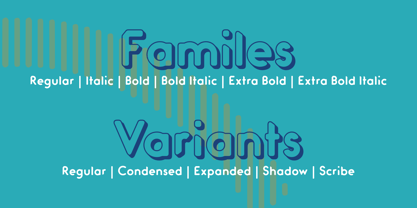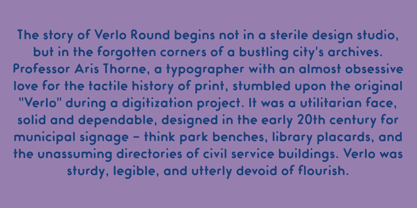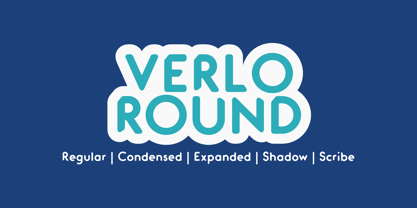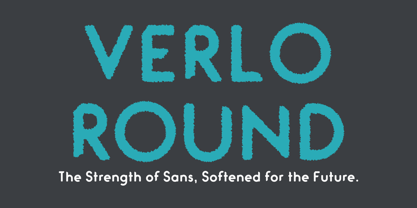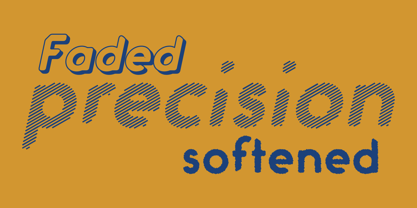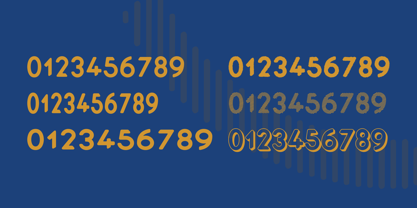
Verlo Round
by Kufic Studio
The Verlo Round Font Family was designed by Ahsan Ahmedzai and published by Kufic Studio. Verlo Round contains 36 styles and family package options. More about this family
Verlo Round, the definitive modern sans-serif typeface, is engineered for superior readability and maximum impact by refining a classic form with soft, inviting curves for an approachable yet authoritative aesthetic perfect for contemporary branding, engaging digital interfaces, and compelling publications. This highly versatile font family includes a full spectrum of weights—Regular, Italic, Bold, Bold Italic, Extra Bold, and Extra Bold Italic—alongside six distinct creative variants—Regular, Scribe, Rough, Shadow, Expanded, and Condensed—ensuring you have the ideal style, from sophisticated space-saving to bold, textured expression, for every design need. Verlo Round is meticulously crafted for the professional designer, creative agency, and motivated entrepreneur who demands both functional excellence and unique character from their typography. Its extensive multilingual support, precise kerning, and comprehensive set of OpenType features guarantee seamless integration into your workflow and a polished, high-quality result in any medium, whether digital or print.
Designers: Ahsan Ahmedzai
Foundry: Kufic Studio